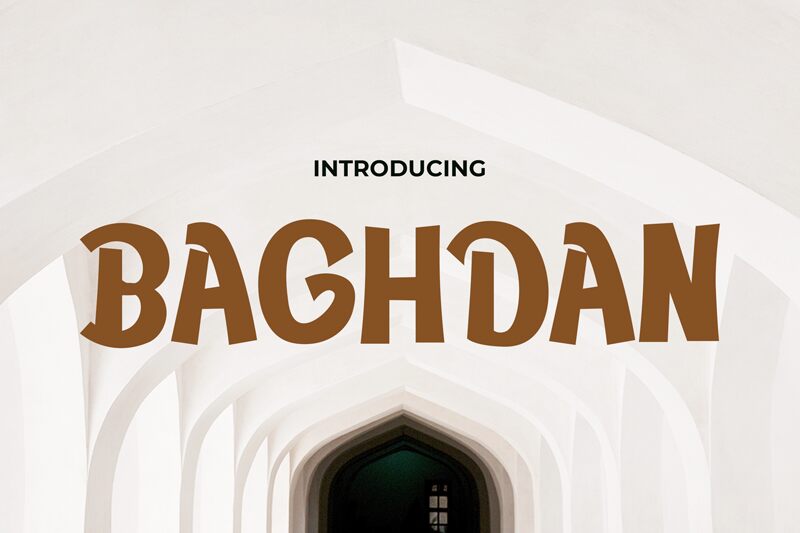
Baghdan by Pinisiart is a free cartoon display font with a chunky, playful pull and a slightly retro poster mood. The caps feel carved and bouncy at once, mixing broad curves with pointed cuts and little notch-like bites that keep the letters lively instead of smooth.
It fits naturally in kids' book covers, comic-style headlines, snack packaging, party flyers, and title cards where a short word needs a bold, animated silhouette. As a free font, it also works well for logos, initials, and big social posts, because the caps have enough quirky shape changes to keep even a few letters feeling active.